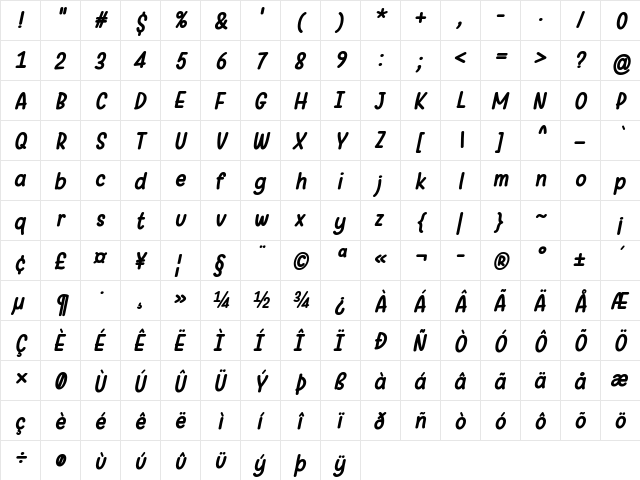
Warung Kopi Bold Italic Font Preview
Design Context for Warung Kopi Typeface
Warung Kopi takes a measured approach to typography — its balanced proportions and neutral character make it a reliable workhorse for both digital and print work. Its italic angle brings a sense of urgency and motion to the letterforms. Its bold stroke weight gives it real presence on the page.
Pro Tip: Try Warung Kopi for annotation and caption copy alongside an upright companion — the contrast in angle creates a dynamic but ordered typographic system.